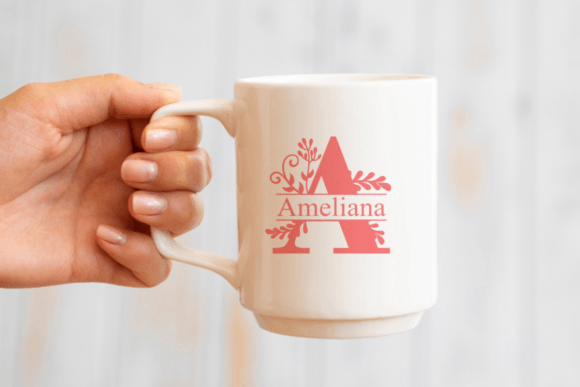
Introducing Arinduni Monogram Font: A Harmonious Blend of Elegance and Nature
In the realm of typography, few fonts manage to capture the essence of elegance and natural beauty as effortlessly as Arinduni Monogram Font. This exquisite font is meticulously designed to create a harmonious fusion of ornate letterforms and delicate floral motifs, making it an ideal choice for projects that demand a touch of sophistication and personalization. In this article, we’ll delve into the world of Arinduni Monogram Font, exploring its unique features, design inspiration, and the versatility it offers to designers and crafters alike.
The Genesis of Arinduni Monogram Font
Arinduni Monogram Font is the brainchild of a creative process that sought to blend the traditional with the modern, the elegant with the organic. The designer’s inspiration was drawn from the intricate patterns found in nature, combined with the classic sophistication of monogrammed lettering. This font is not just a collection of letters; it’s an artistic expression that brings to life the beauty of botanical elements intertwined with typographic excellence.
Design Characteristics
Arinduni Monogram Font is characterized by its captivating combination of ornate initials and delicate blossoms. Each letterform is carefully crafted to not only stand alone as a piece of art but also to complement the adjacent letters, creating a seamless and aesthetically pleasing monogram. The floral motifs are intricately designed, ranging from simple, elegant blooms to more complex, intertwining vines and leaves, ensuring that each monogram is unique and visually striking.
The font’s design characteristics include:
- Elegant Letterforms: Each letter in Arinduni Monogram Font is designed with elegance in mind, featuring flowing lines and intricate details that elevate any text to a higher level of sophistication.
- Floral Motifs: The delicate floral patterns are not just add-ons; they are integral to the design of each monogram, providing a natural and organic feel that is hard to replicate with standard fonts.
- Versatility: Arinduni Monogram Font comes in various weights and styles, allowing designers to choose the perfect version for their project, whether it’s for a luxury brand, a wedding invitation, or a personal stationery set.
- Legibility: Despite its ornate appearance, the font maintains a high level of legibility, making it suitable for both digital and print applications.
Applications of Arinduni Monogram Font
The versatility of Arinduni Monogram Font makes it suitable for a wide range of applications. Here are a few areas where this font truly shines:
- Wedding and Event Stationery: Add a personal touch to wedding invitations, save-the-date cards, and event programs with beautifully customized monograms.
- Branding and Logo Design: For businesses in the luxury sector, such as high-end boutiques, gourmet restaurants, and bespoke services, Arinduni Monogram Font offers a unique way to convey elegance and exclusivity.
- Personal Stationery: Elevate your personal correspondence with custom monogrammed stationery, notebooks, and journals.
- Digital Media: Use Arinduni Monogram Font in digital marketing materials, such as social media graphics, email newsletters, and website headers, to add a touch of sophistication.
Tips for Using Arinduni Monogram Font
To make the most of Arinduni Monogram Font, consider the following tips:
- Pair with Simplicity: Balance the intricacy of the font by pairing it with simpler design elements, ensuring that your overall design doesn’t become too cluttered.
- Experiment with Colors: While the font’s details are striking in metallic colors, don’t be afraid to experiment with pastel shades or monochromatic schemes to suit your project’s theme.
- Pay Attention to Scale: The intricate details of Arinduni Monogram Font can be lost if the text is too small. Ensure that your monograms are large enough to showcase their beauty.
Arinduni Monogram Font is more than just a collection of letters; it’s a gateway to creating visually stunning and meaningful monograms that add a touch of elegance and personalization to any project. Its unique blend of ornate typography and floral motifs makes it a versatile tool for designers, crafters, and anyone looking to add a bit of sophistication to their work. Whether you’re designing for a client or crafting something for personal use, Arinduni Monogram Font is sure to inspire and elevate your creations.
- Q: Is Arinduni Monogram Font suitable for digital use? A: Yes, Arinduni Monogram Font is designed to be versatile and can be used in both print and digital applications.